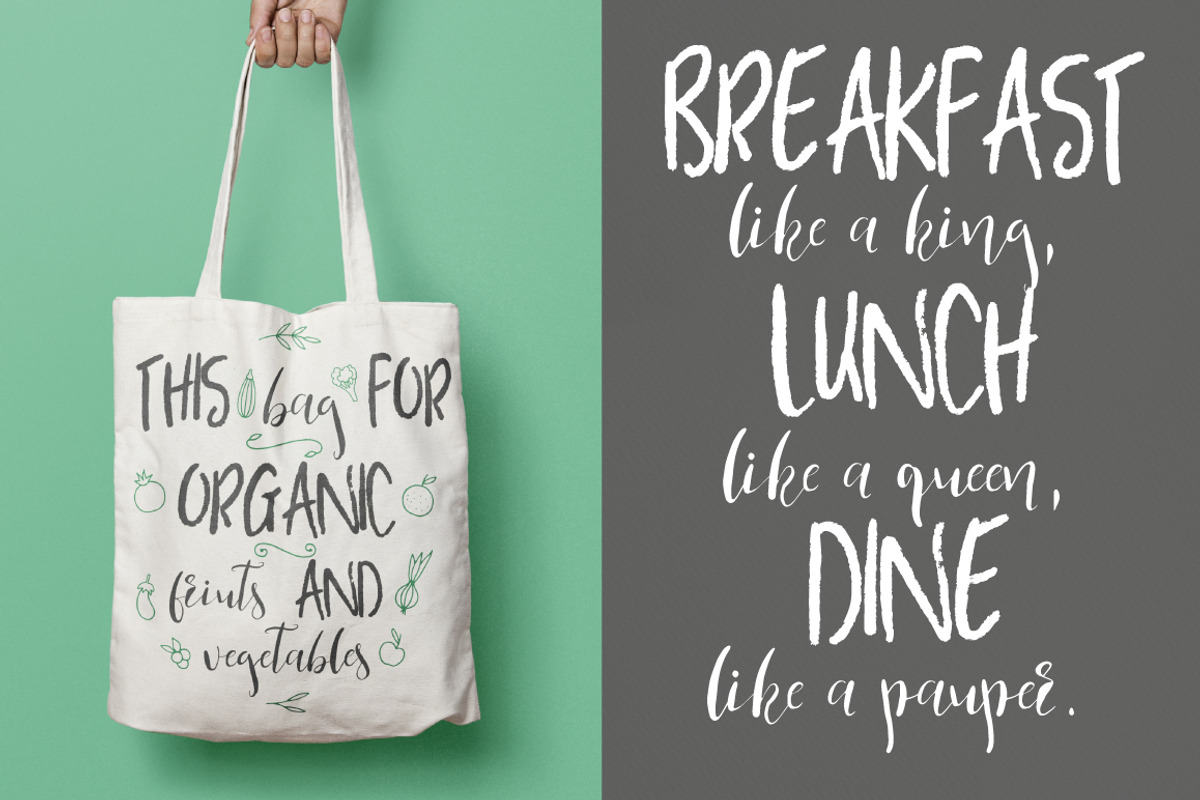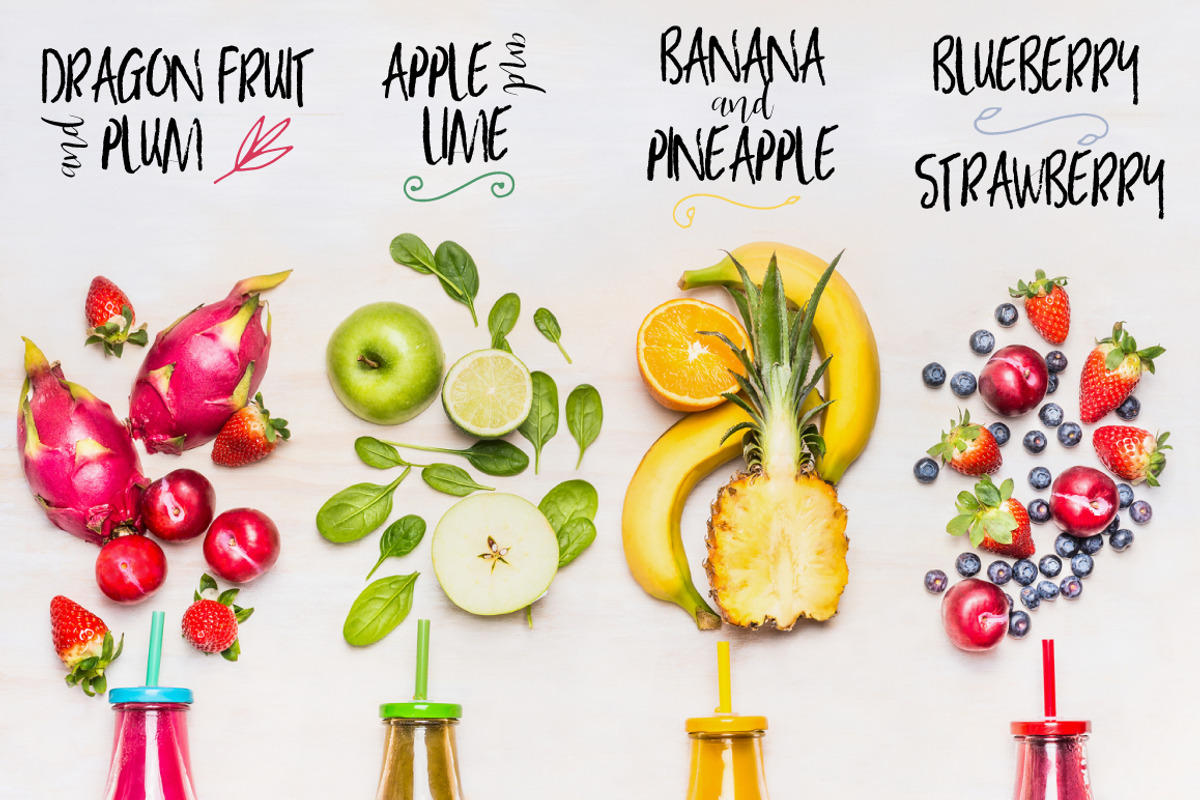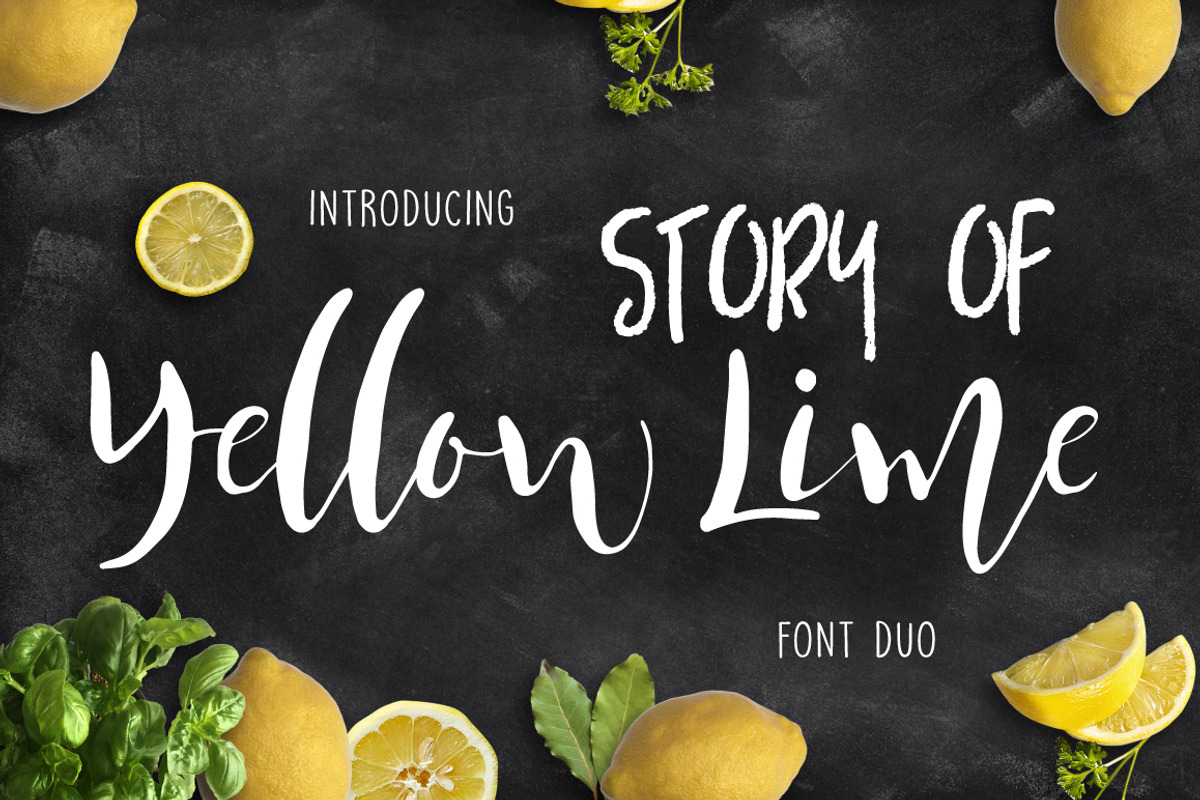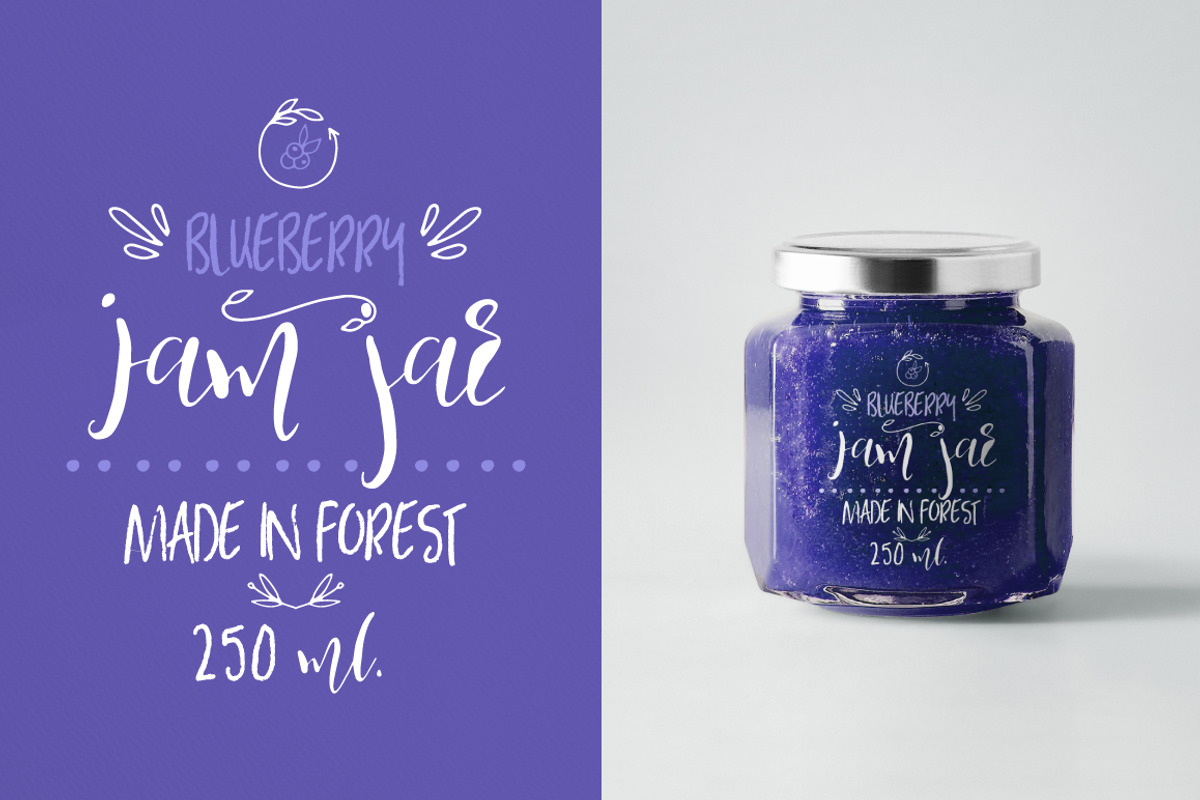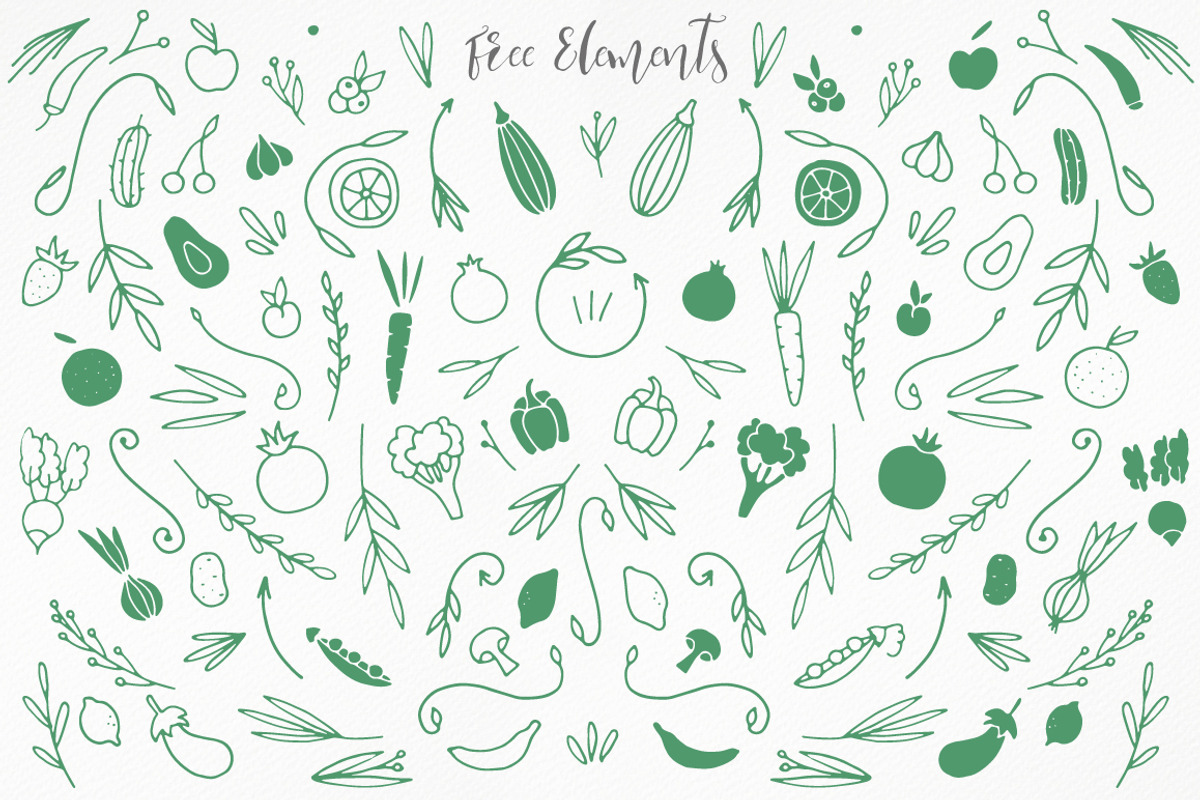
Yellow Lime Font Duo + Vector Doodle
Yellow Lime Font Duo + Vector Doodle by Creamy Script is a font selected for branding, posters, packaging, typography.
- The script comes with alternative letters.
- Yellow Lime: Hand lettered calligraphy-type script, with alternative letters [OTF, TTF, WOFF and WOFF 2]; Yellow Lime Display: Cute and char
Why Yellow Lime Font Duo + Vector Doodle is worth a look
Yellow Lime Font Duo + Vector Doodle by Creamy Script fits naturally into Branding, posters, packaging, typography.